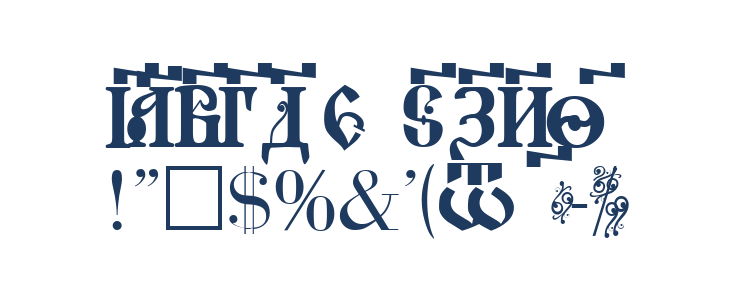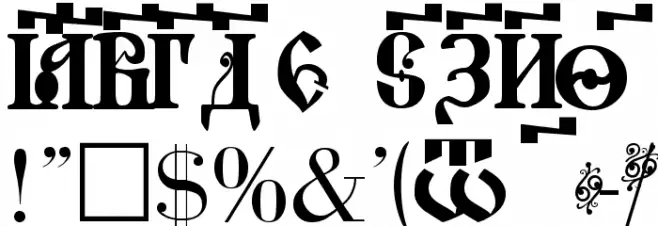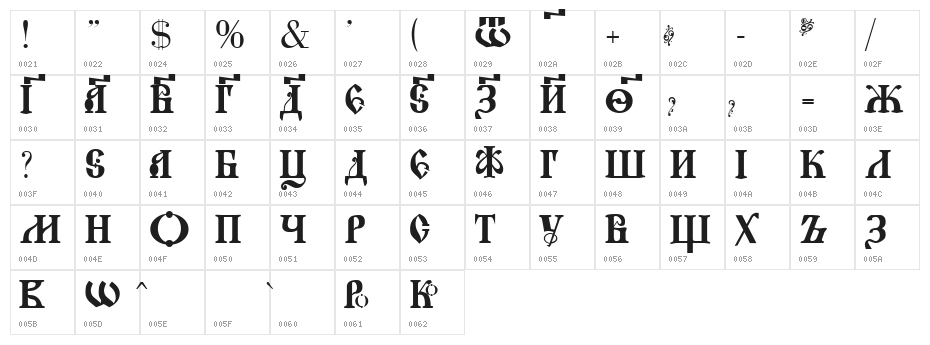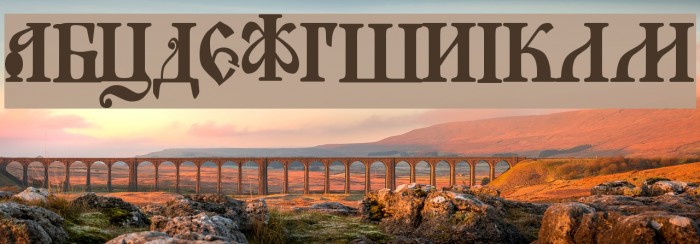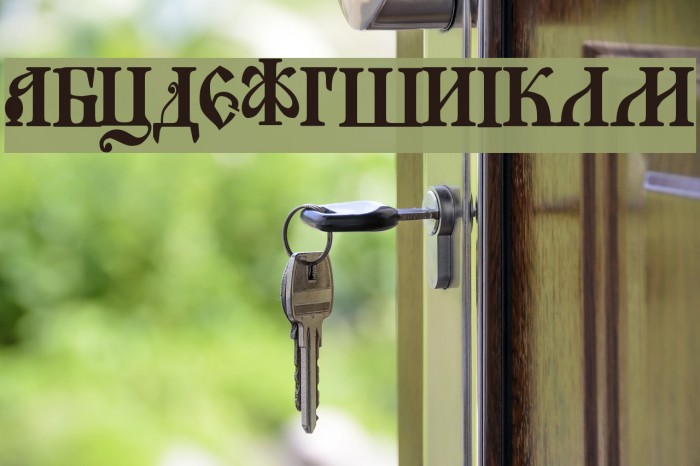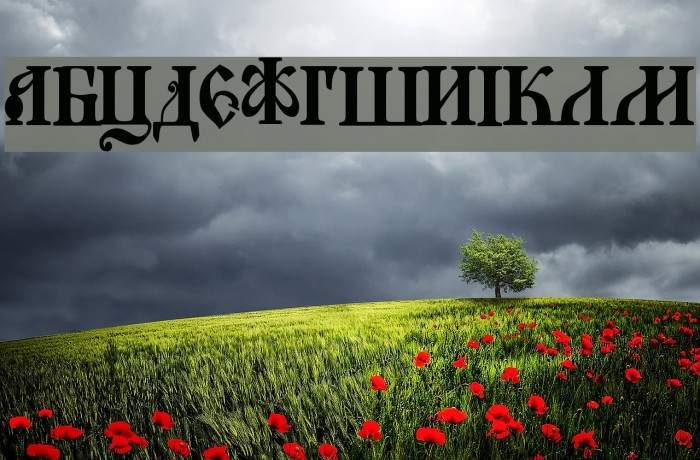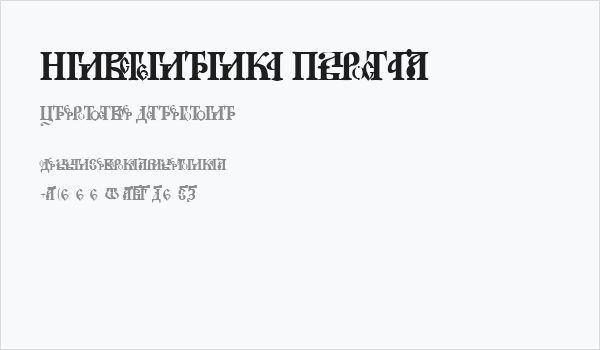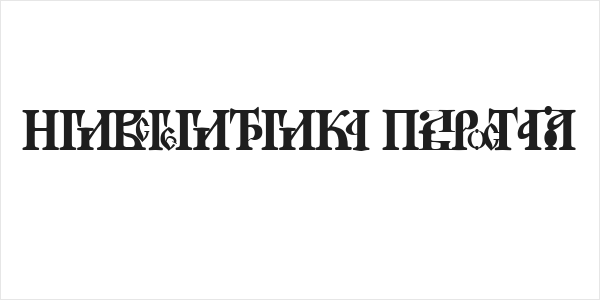
Novgorod Plain Font
This font features a highly decorative and intricate design, characterized by its ornate and elaborate detailing. The characters exhibit a strong influence of traditional Slavic and Cyrillic script styles, with bold, angular shapes and flourishes that add a sense of historical depth and cultural richness. The font's unique embellishments and artistic elements make it stand out, providing a visually striking appearance. The uppercase and lowercase letters maintain a consistent style, with each character displaying unique ornamental features. The numbers and special characters are equally detailed, ensuring a cohesive look across all elements.
An ornate and decorative font inspired by traditional Slavic script styles from Uncategorized fonts.
- Proposed Projects: Ideal for cultural or historical projects, branding for traditional products, or artistic designs requiring a touch of elegance and heritage.
- Overall Style: Vintage
- Use Case: Logos, Posters, Cultural Event Materials